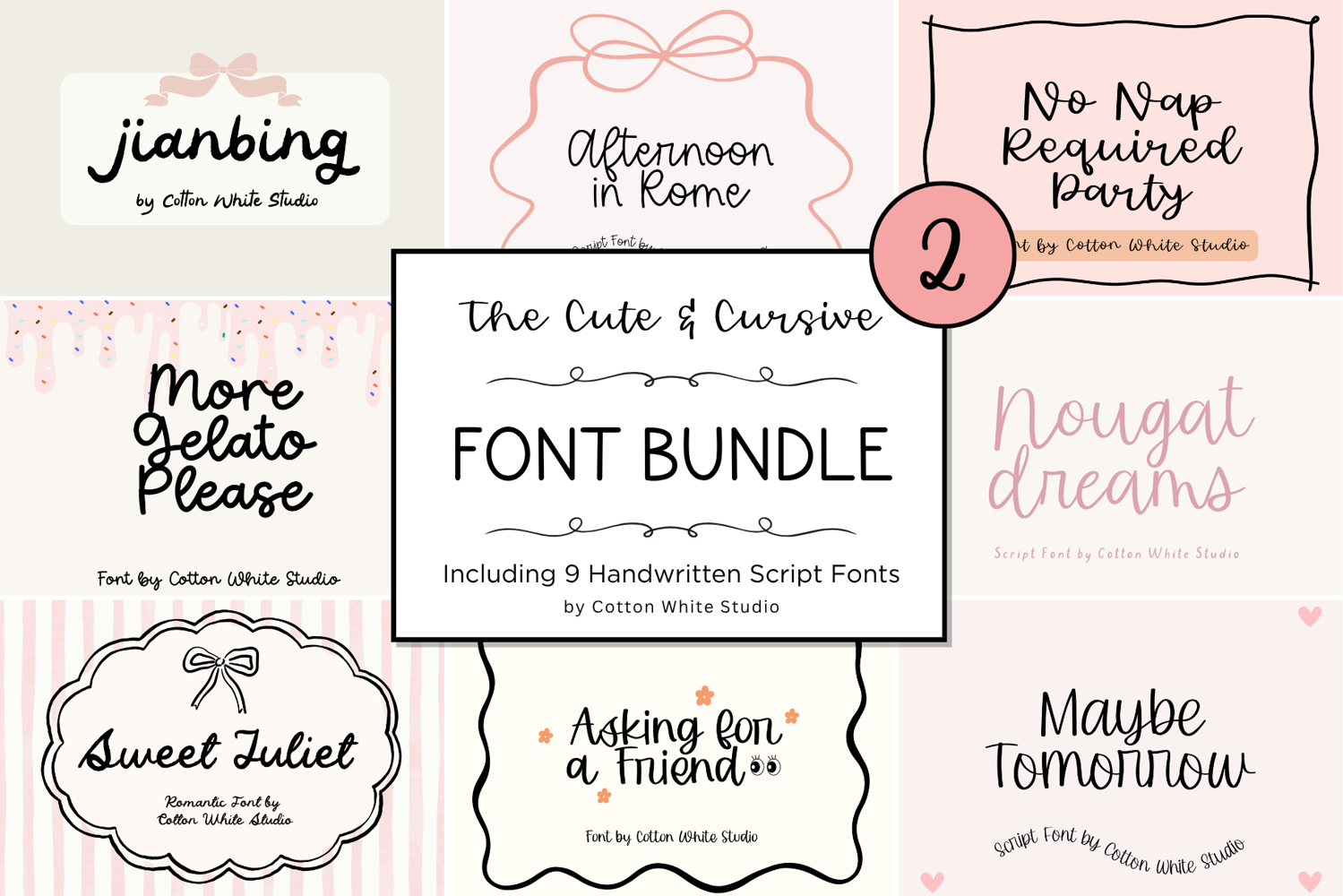
The Cute and Cursive Font Bundle 2
This bundle gathers 9 stunning script fonts for you to use in your upcoming projects.
Fonts Included:
1. Jianbing
2. Afternoon in Rome
3. No Nap Required
4. More Gelato Please
5. Sweet Juliet
6. Asking for a Friend
7. Maybe Tomorrow
8. Nougat Dreams
9. Midnight Ganache
Perfect for digital notes, planners, logo, web design, notebooks, journals, labels, blogs, quotes, greeting cards, tea towels, apparel, pillows, mugs, toys, posters, baby clothing, picture books and so much more... basically anything that requires a cute handwritten look! 😍